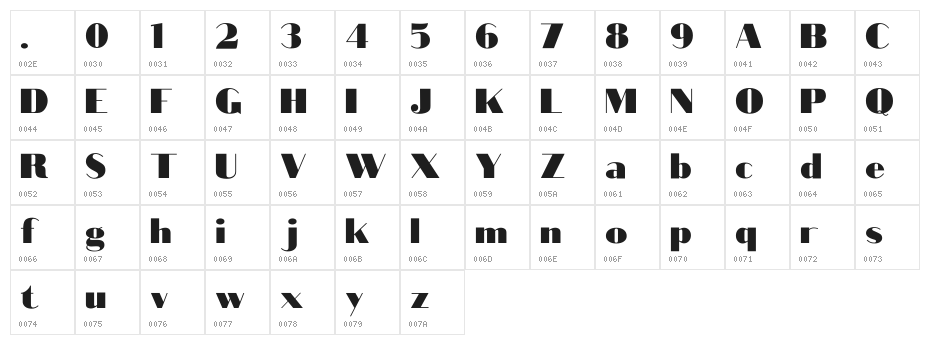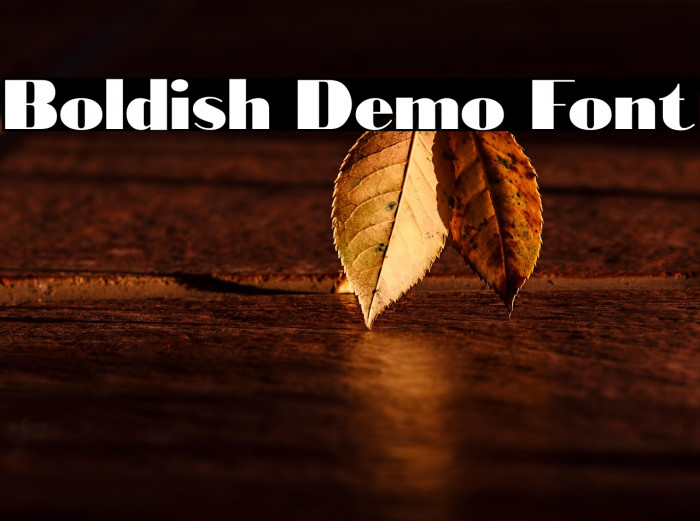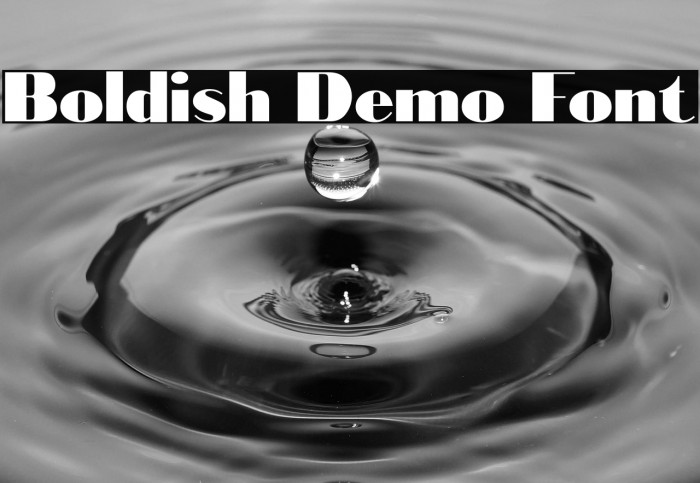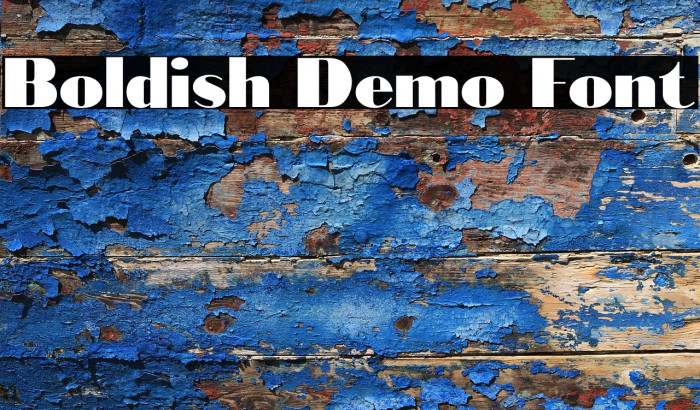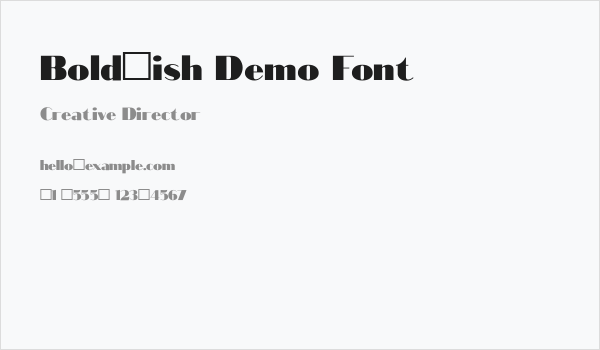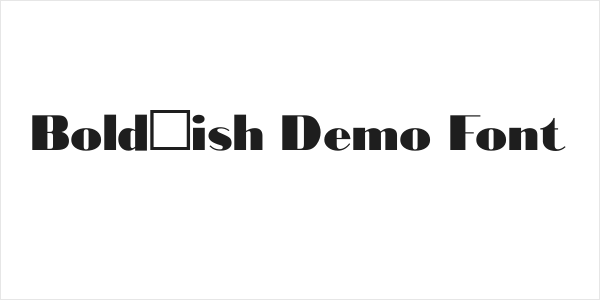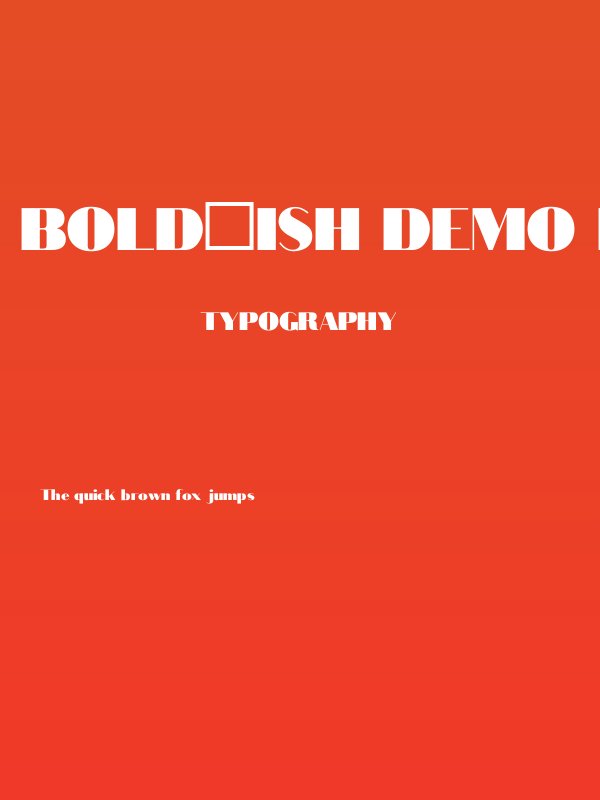
Bold-ish Demo Font Font
Bold-ish Demo Font Description
This font features a bold and striking design with a modern twist. The uppercase letters are characterized by thick, solid strokes that give them a strong presence, while the lowercase letters maintain a similar boldness with slightly more curvature, adding a touch of elegance. The numbers are equally bold, ensuring consistency across all characters. The font's design includes unique elements such as varying stroke widths and subtle serifs, which contribute to its distinctive appearance. Its high contrast between thick and thin strokes enhances readability and visual impact, making it suitable for attention-grabbing headlines and titles.
Overall StyleModern, Decorative
Proposed ProjectsIdeal for branding, advertising, poster design, and any project requiring a strong visual impact.